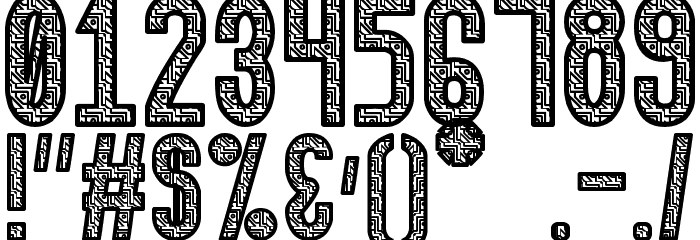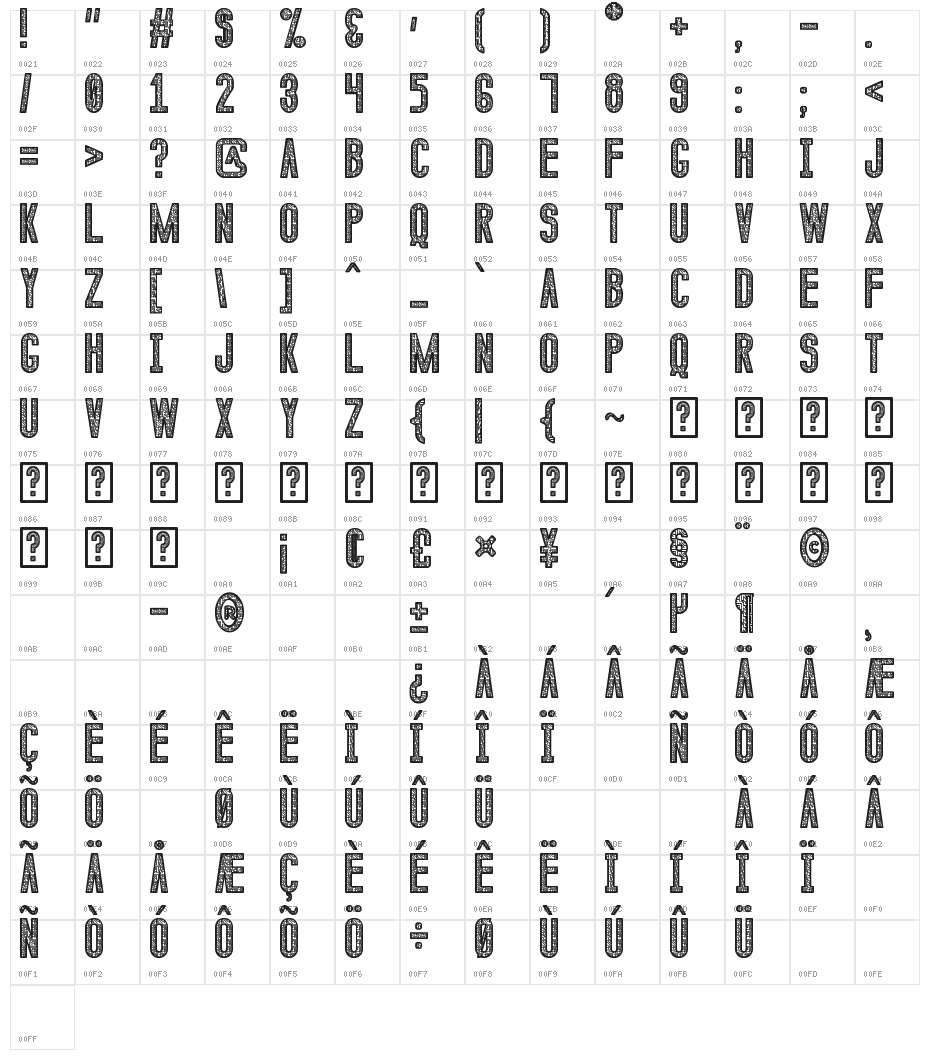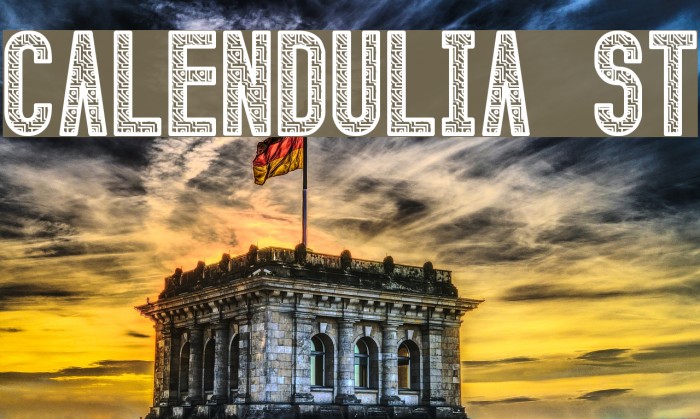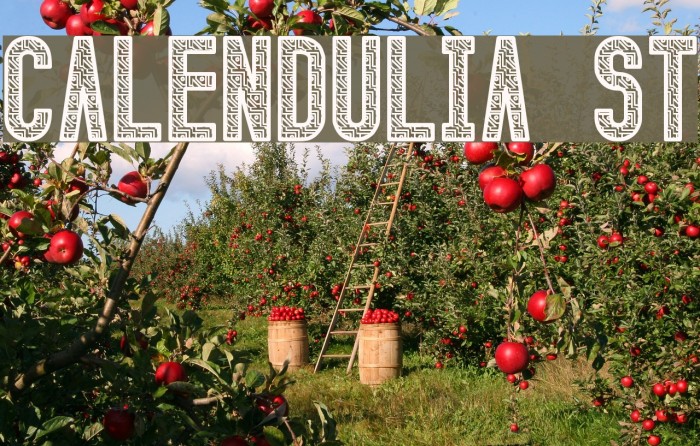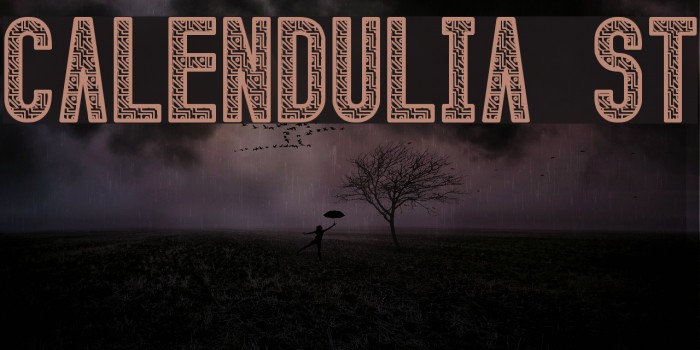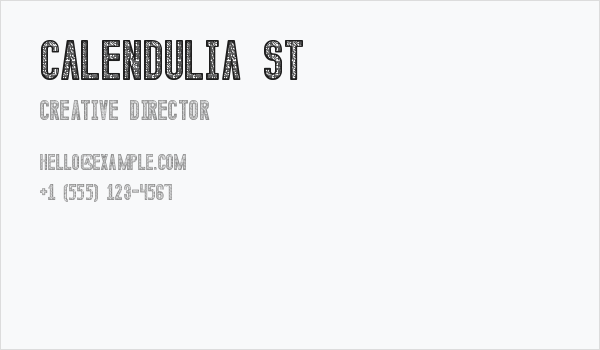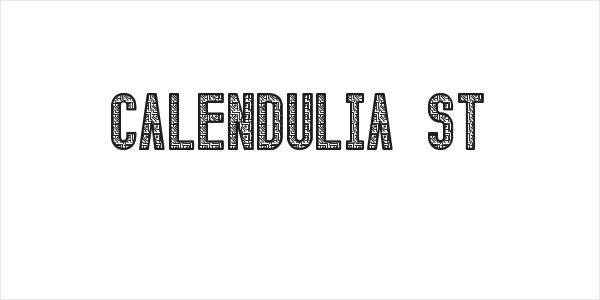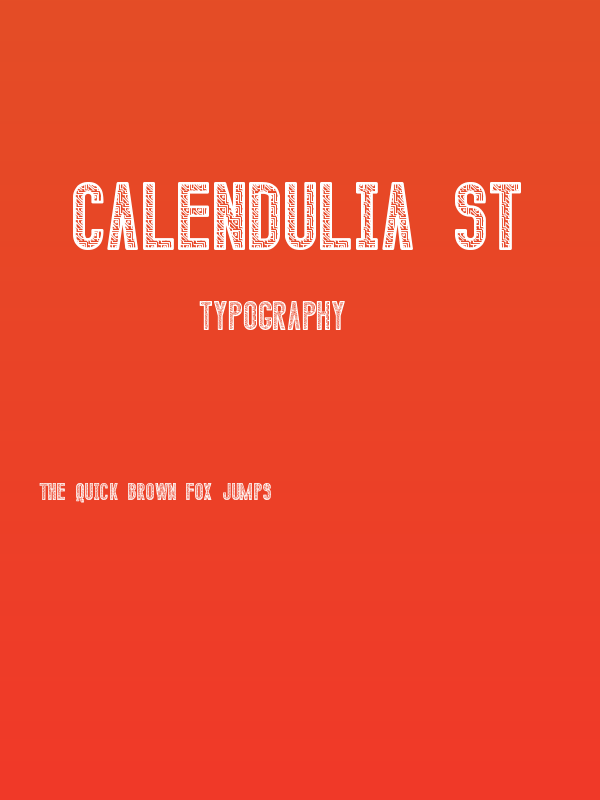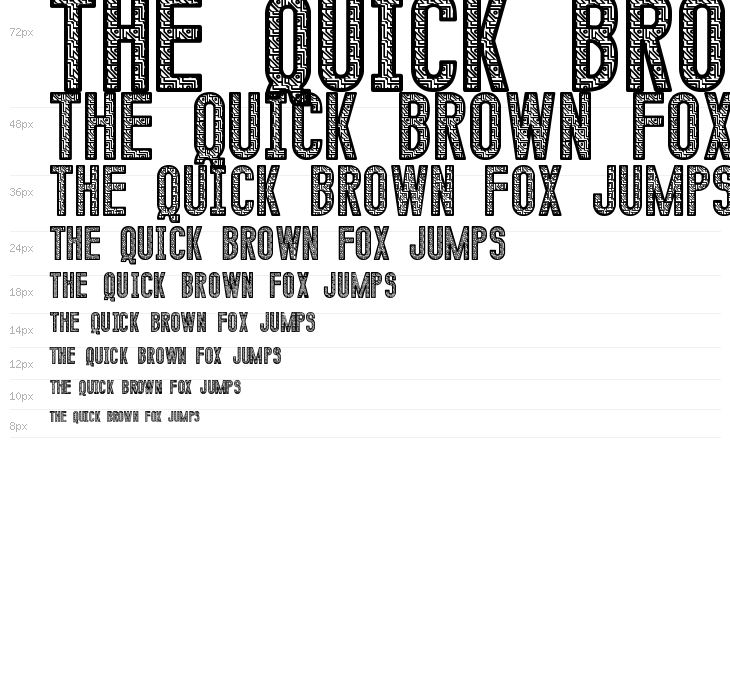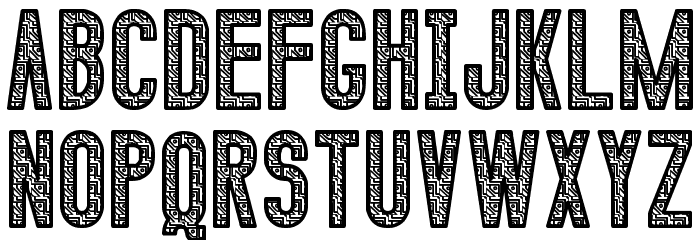
Calendulia St Font
Calendulia St Description
This font features a bold, decorative style with intricate patterns filling each character. The uppercase and lowercase letters maintain a consistent geometric structure, while the numbers and special characters follow the same design principles. The font's unique texture gives it a dynamic and eye-catching appearance, making it ideal for creative projects. The characters are outlined with a thick border, enhancing their visibility and adding to the overall boldness. The intricate detailing within each letter creates a sense of depth and complexity, making it suitable for standout designs.
| Proposed Projects | Ideal for posters, album covers, branding, and any project requiring a striking visual impact. |